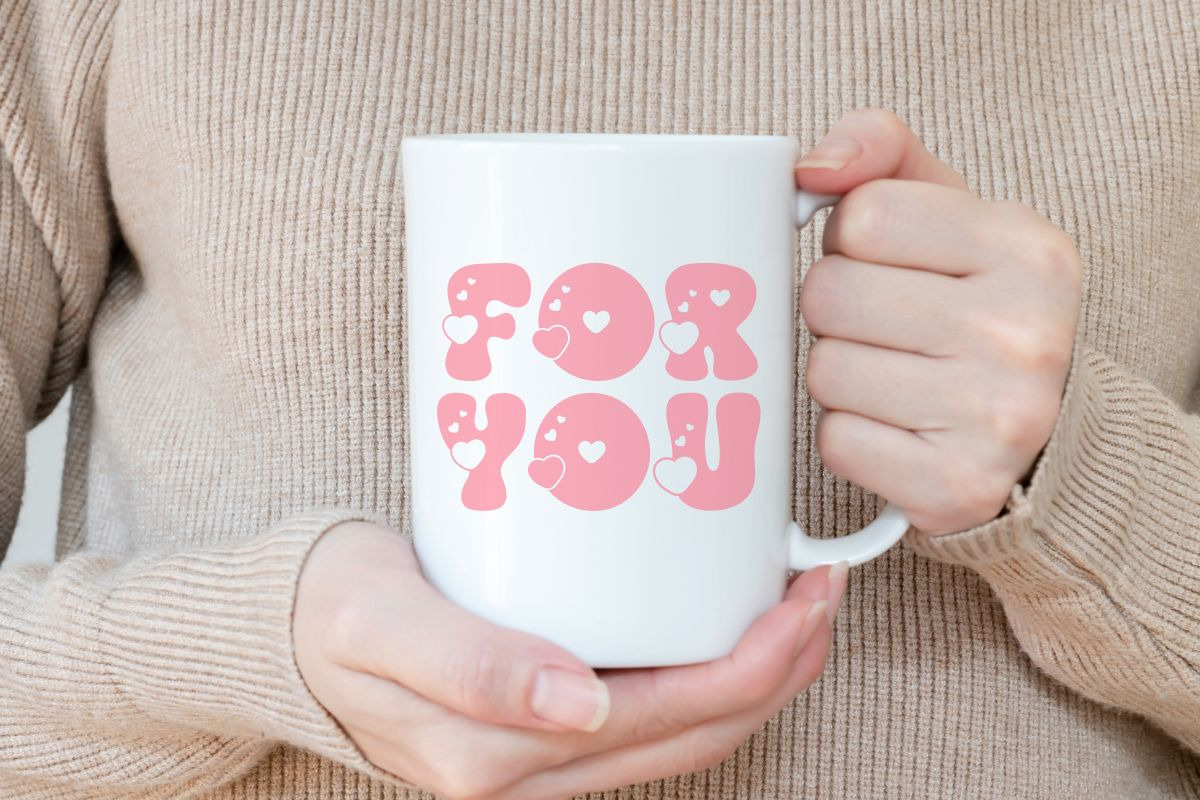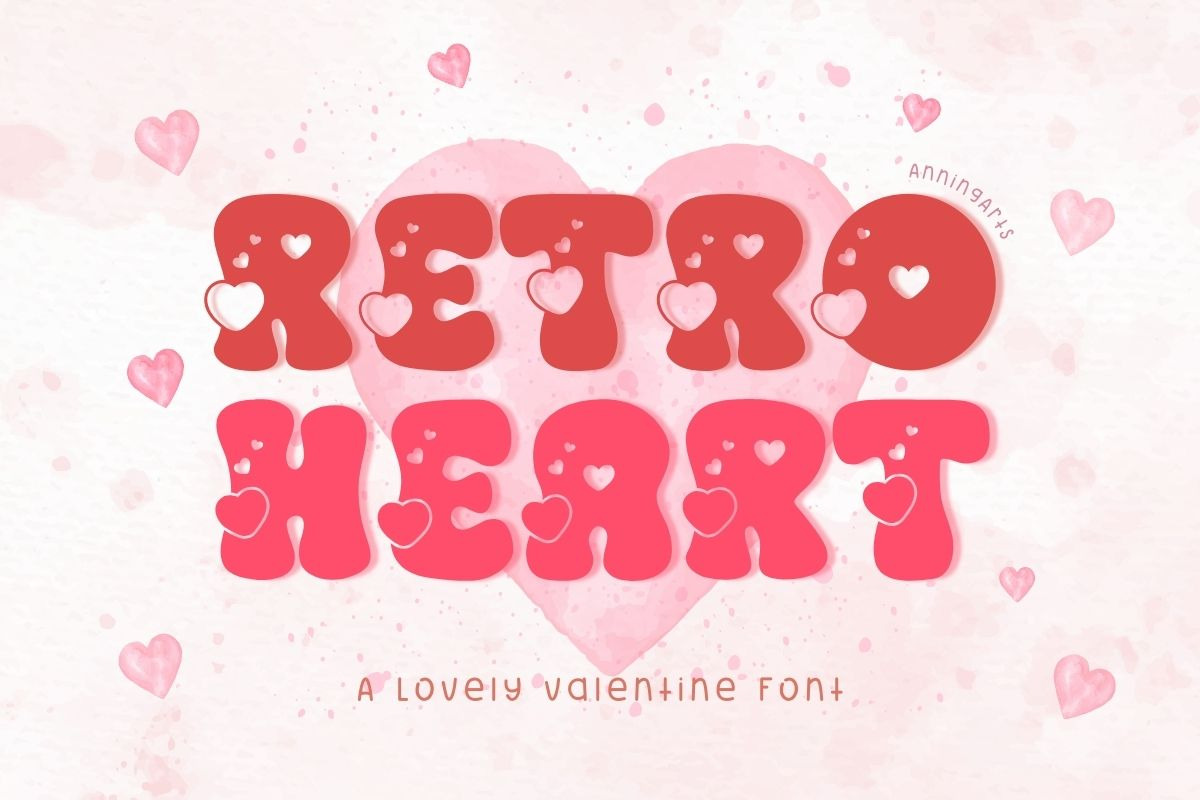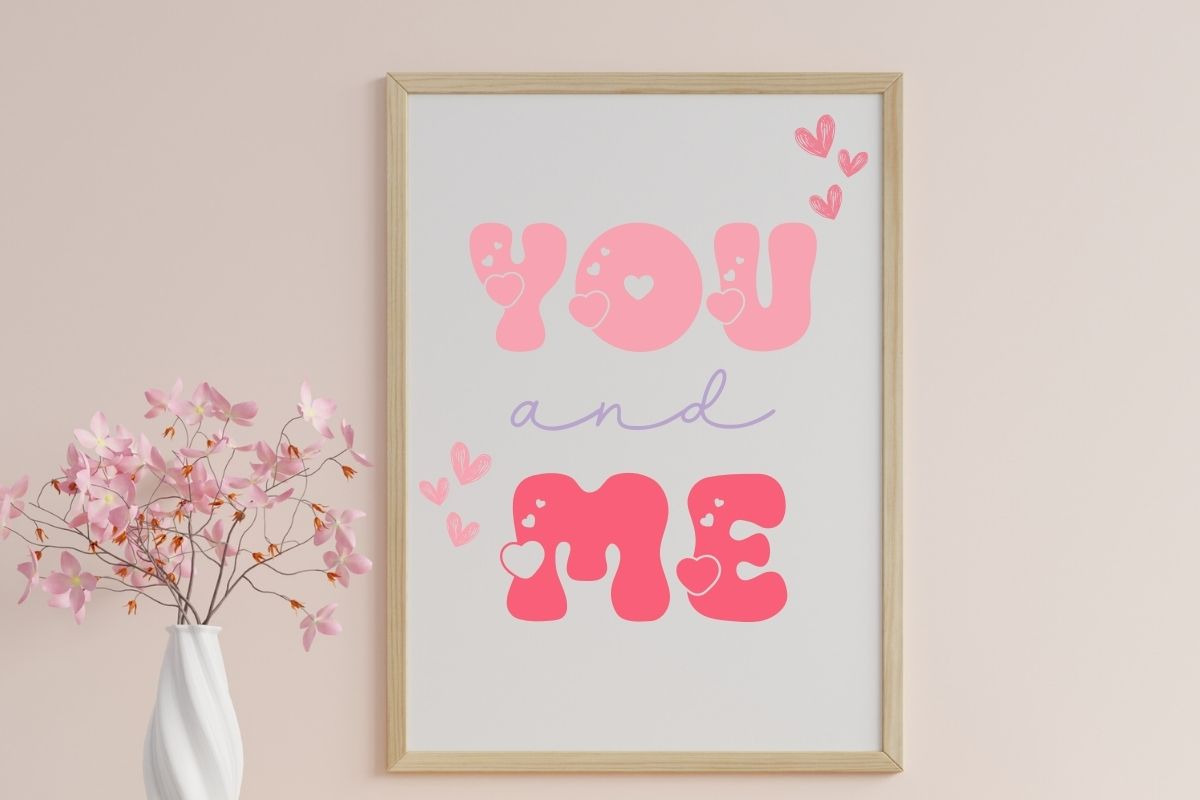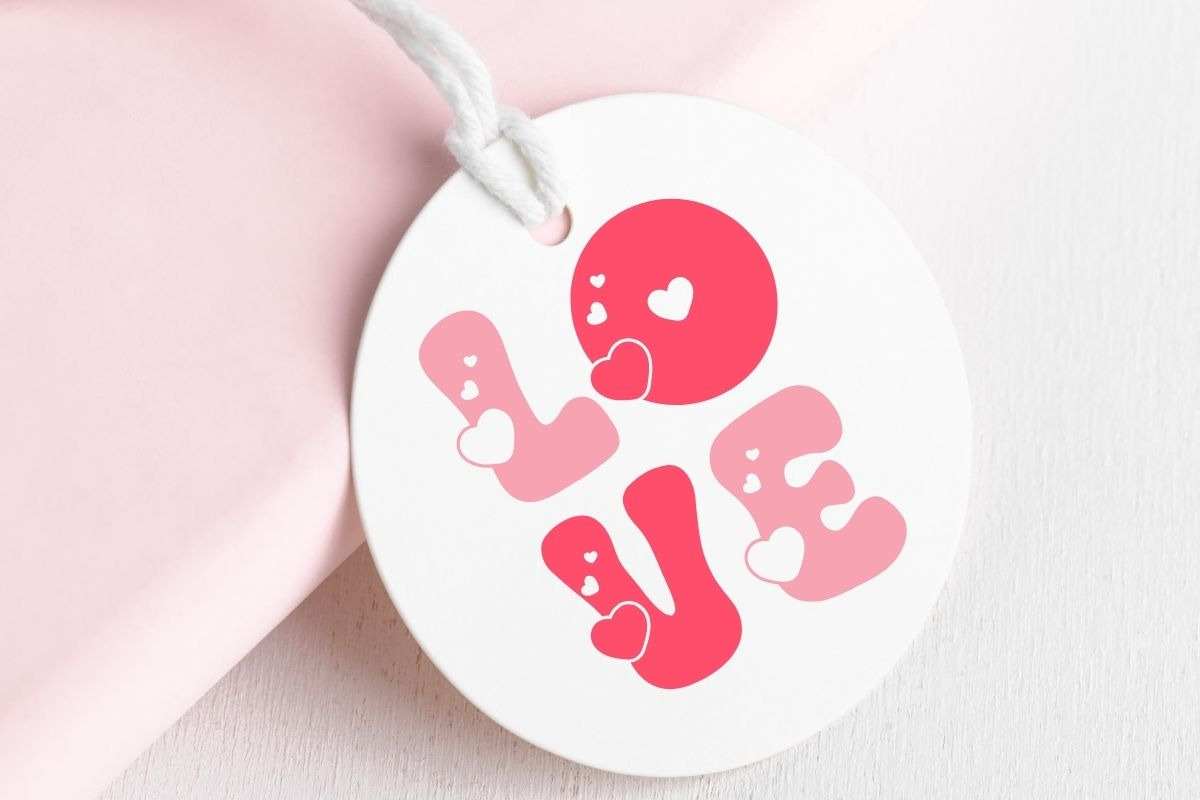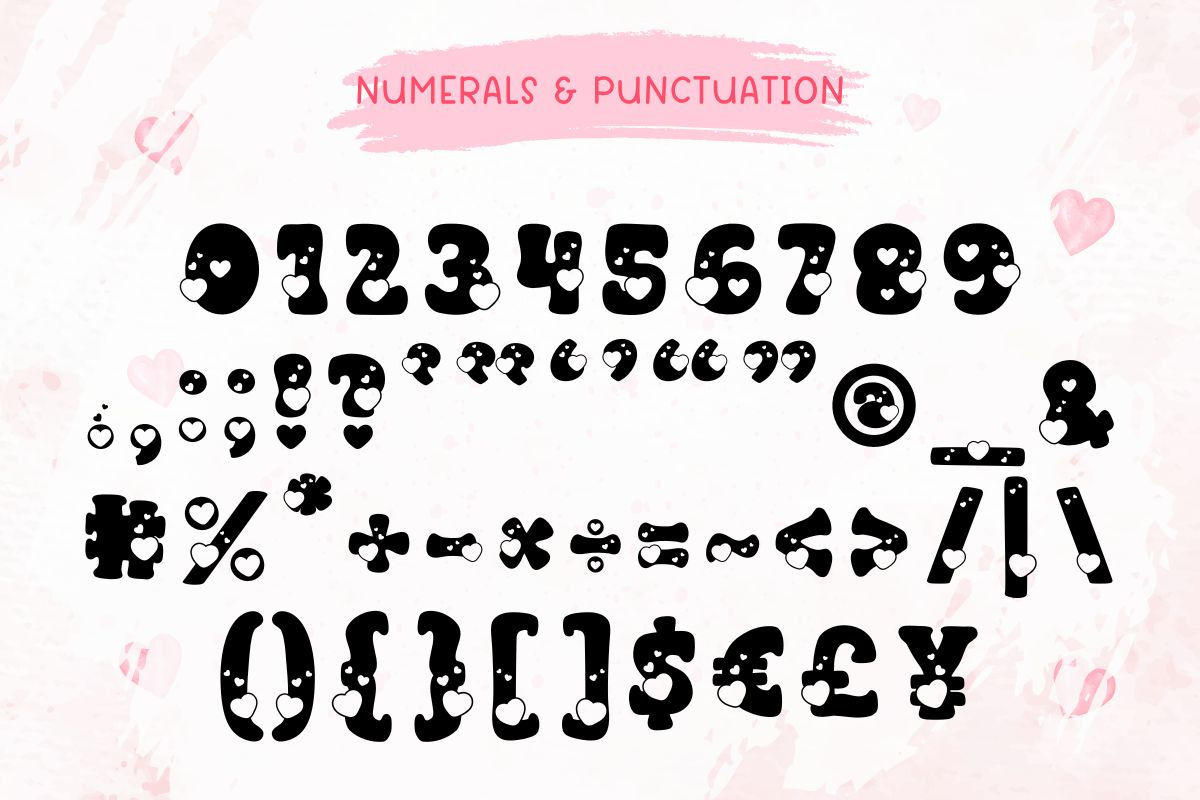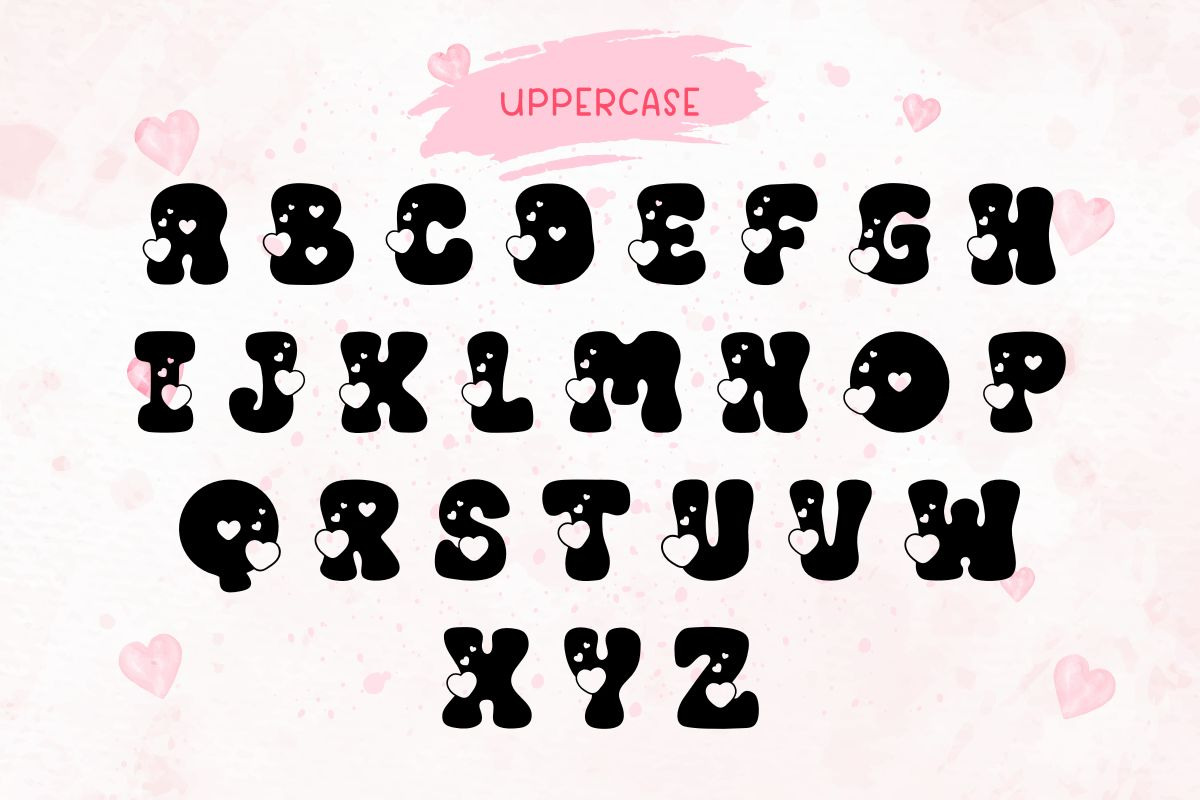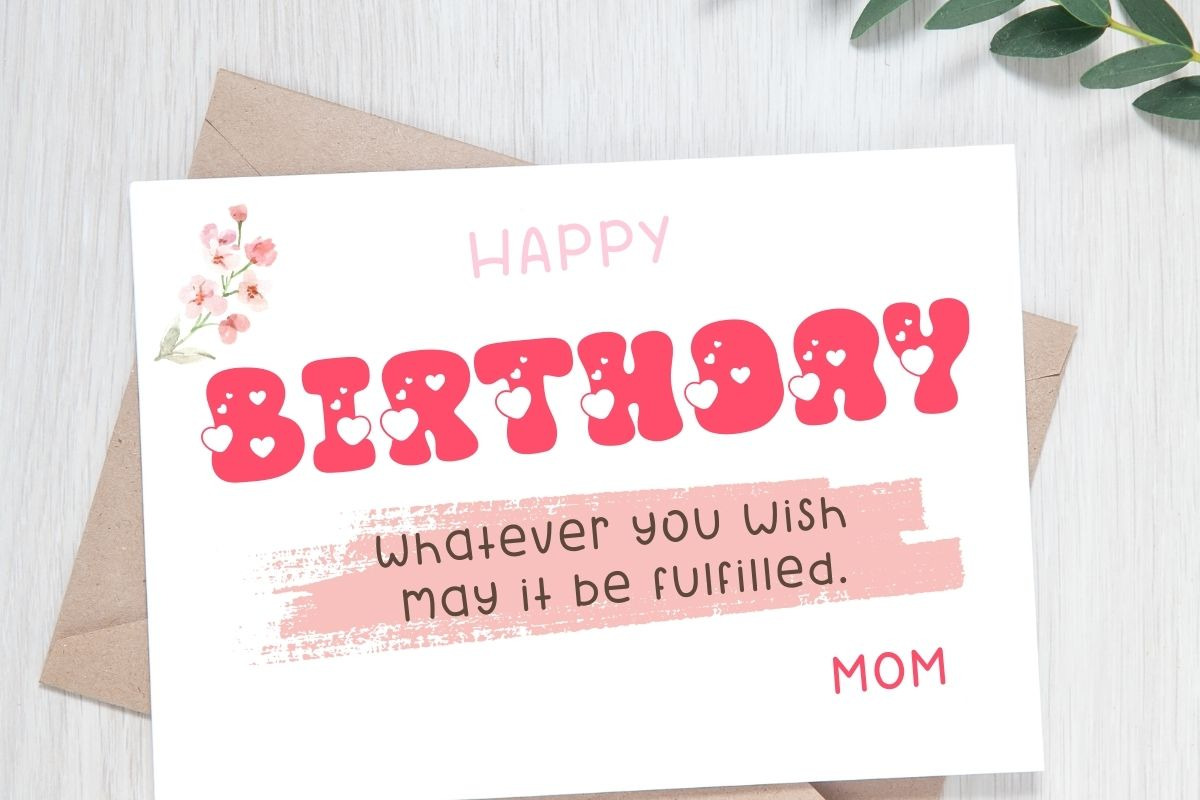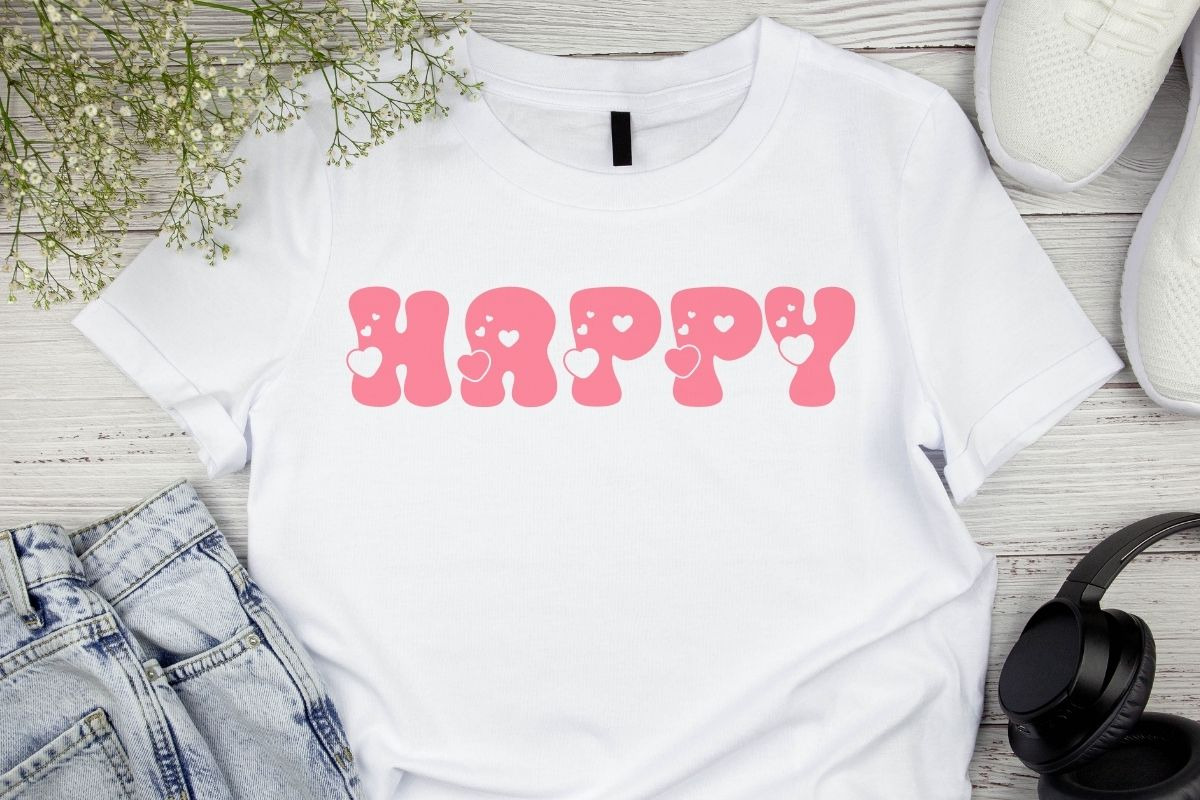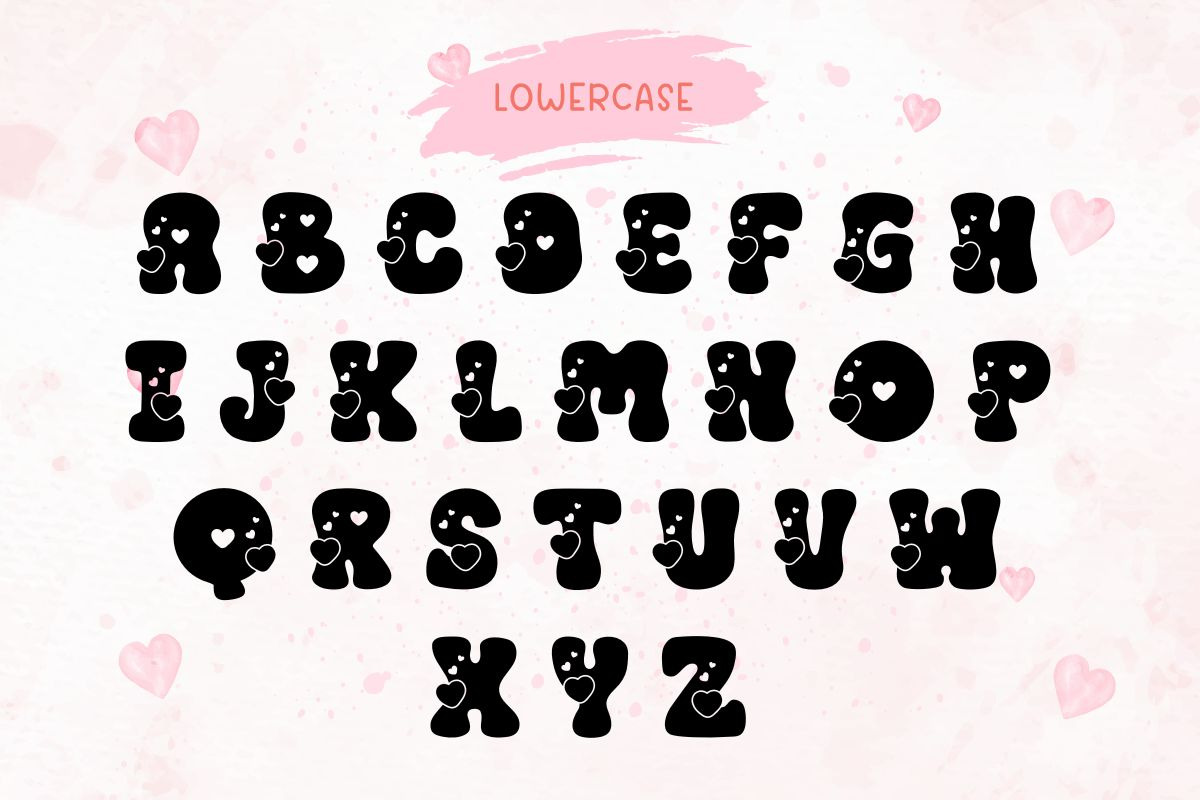
Retro Heart - Valentine Font
Infuse your projects with love using Retro Heart, a charming vintage-inspired font! Perfectly crafted for Valentine's Day, weddings, greeting cards, or any celebration of love and romance.
Retro Heart is the perfect way to make your designs stand out and leave a lasting impression!